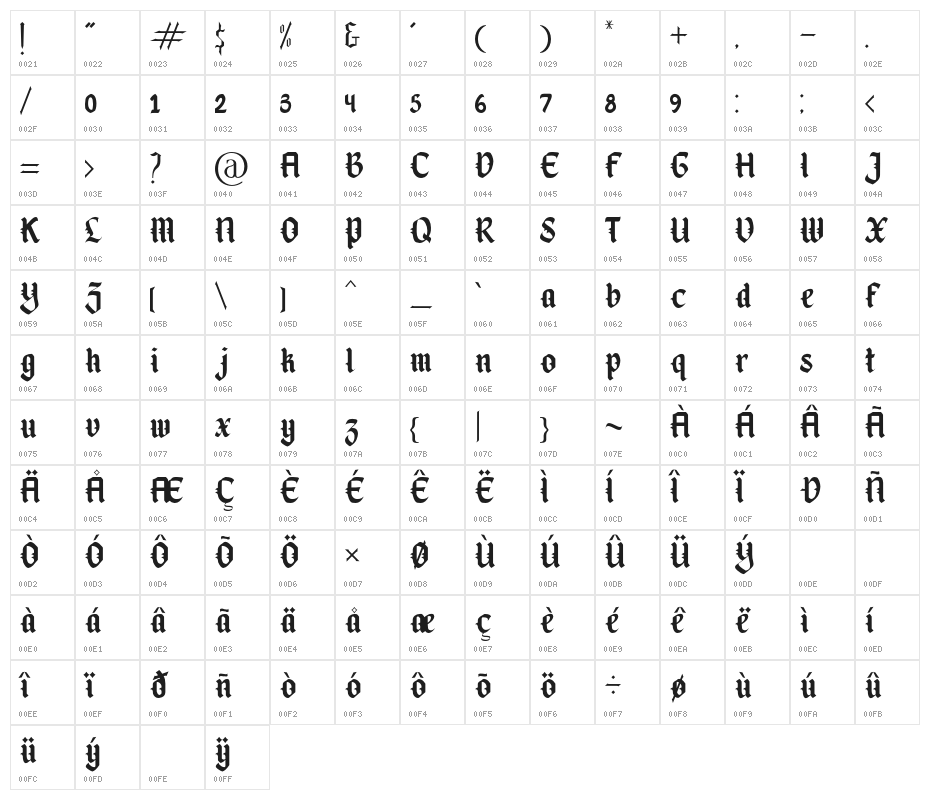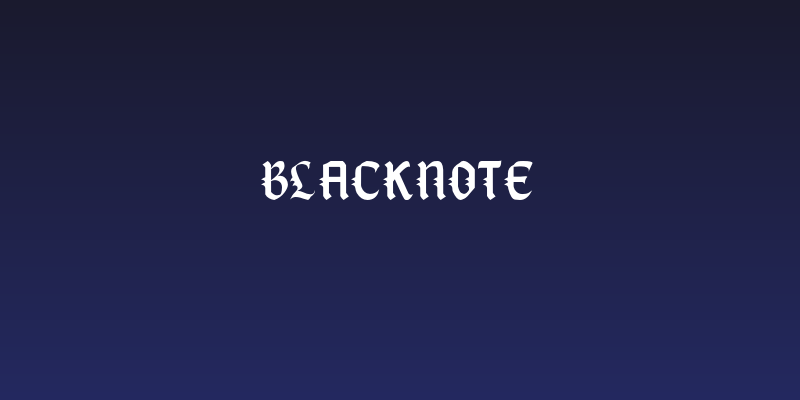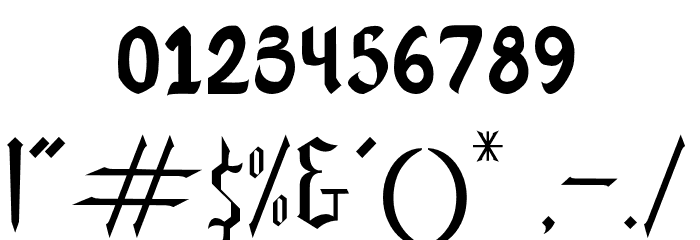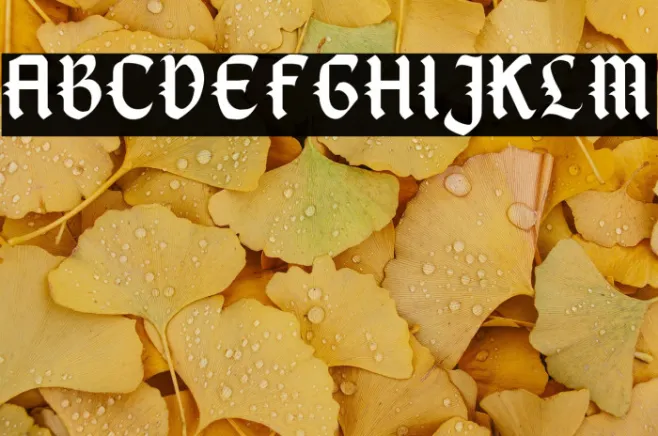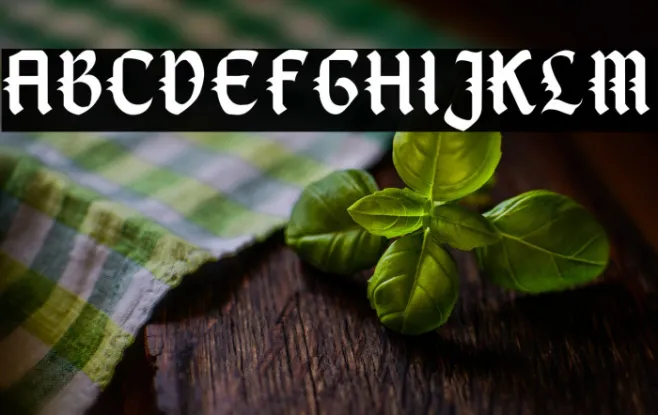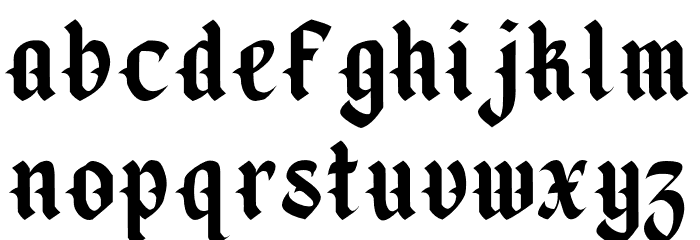
BlackNote Font
BlackNote Description
This font features a bold and dramatic style, reminiscent of traditional blackletter typefaces. The characters are characterized by their sharp, angular lines and intricate detailing, giving them a gothic and medieval appearance. The uppercase and lowercase letters maintain a consistent style, with a strong emphasis on vertical strokes and pointed serifs. The numerals and special characters are equally ornate, blending seamlessly with the overall aesthetic. This font exudes a sense of history and gravitas, making it ideal for projects that require a touch of elegance and tradition.
| Proposed Projects | Ideal for historical documents, wedding invitations, book covers, and branding that requires a classic and elegant touch. |